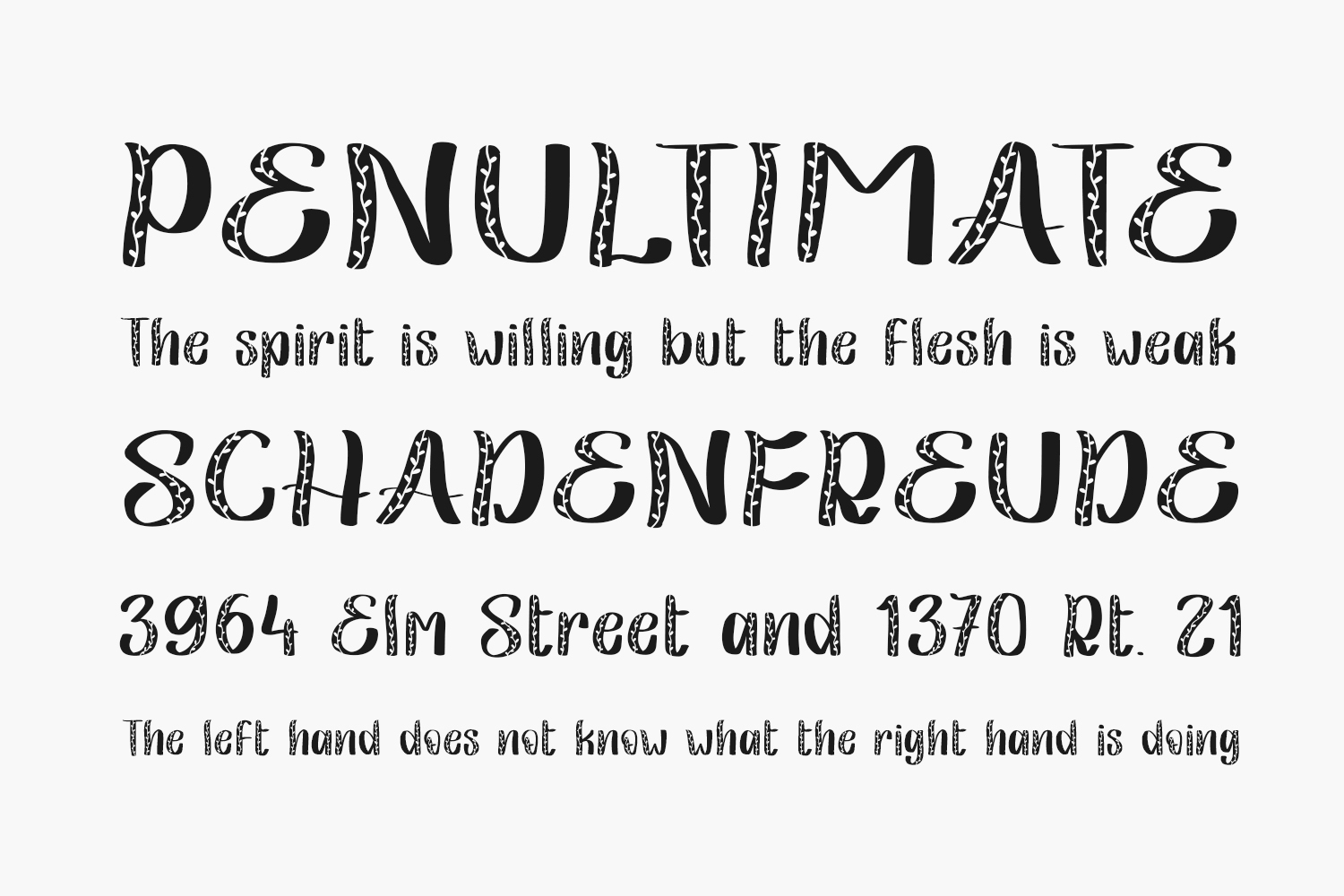
Christmas Leaf Free Font is a crafty and cute display font. Christmas leaf is the perfect choice for any children’s activity, Christmas, Thanksgiving, poster, logo, packaging, or school project. Christmas Leaf Free Font was designed by Letterafa Studio and is free for personal use only. Please purchase the full version for commercial use.
Designed by Letterafa Studio